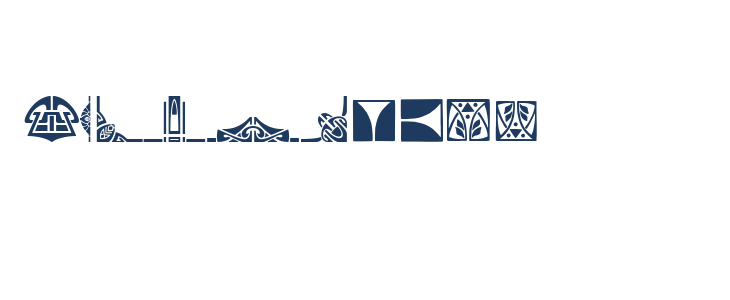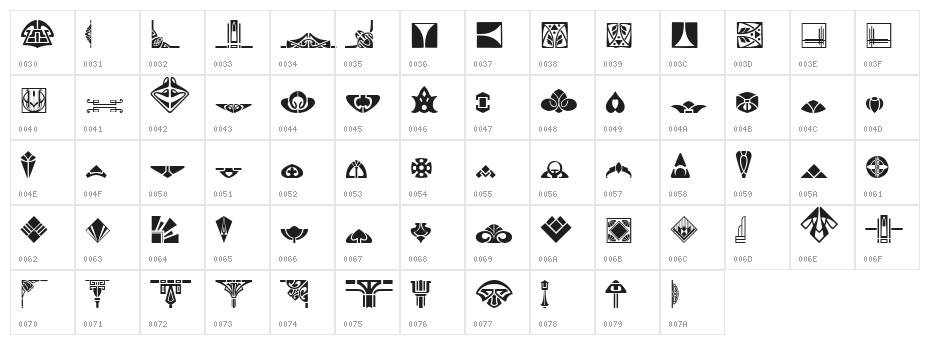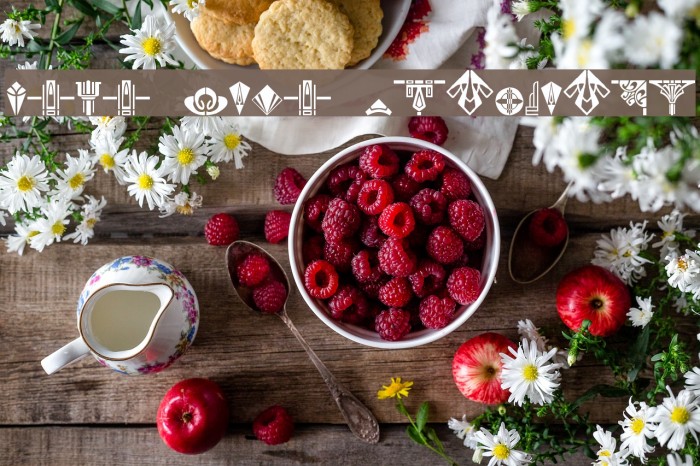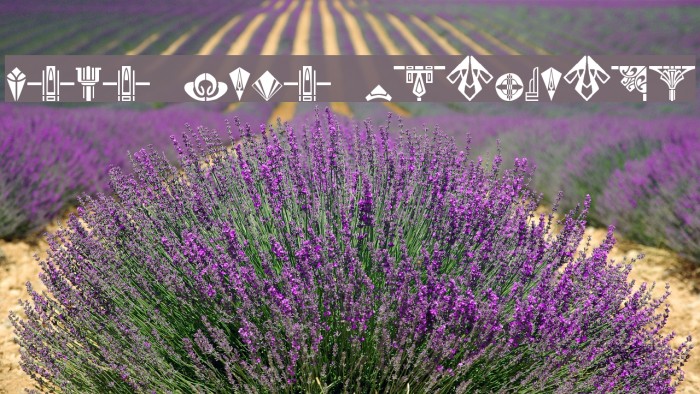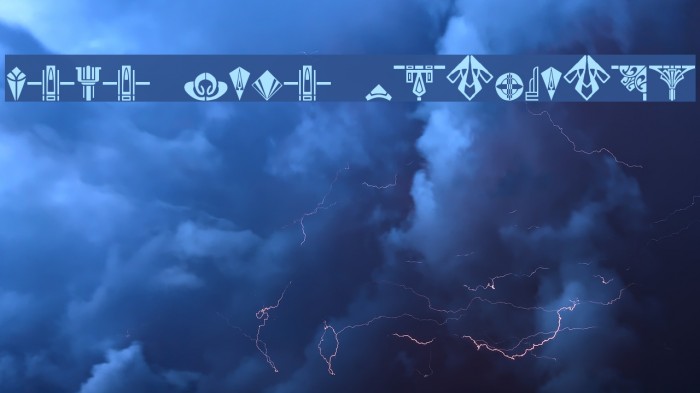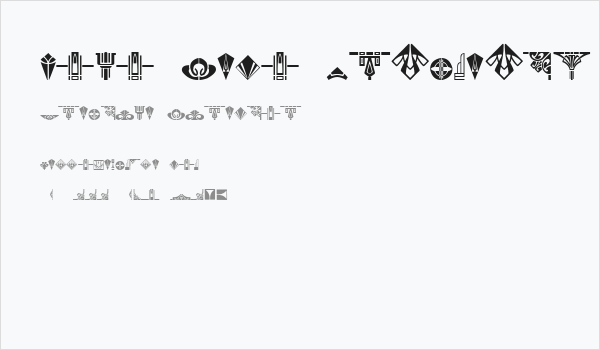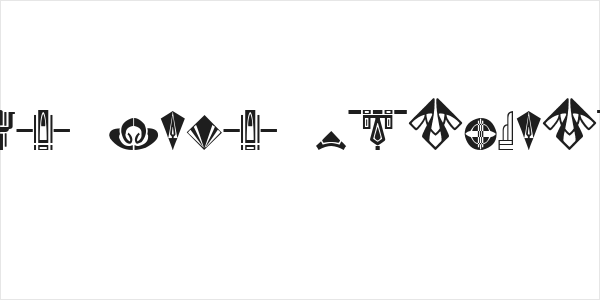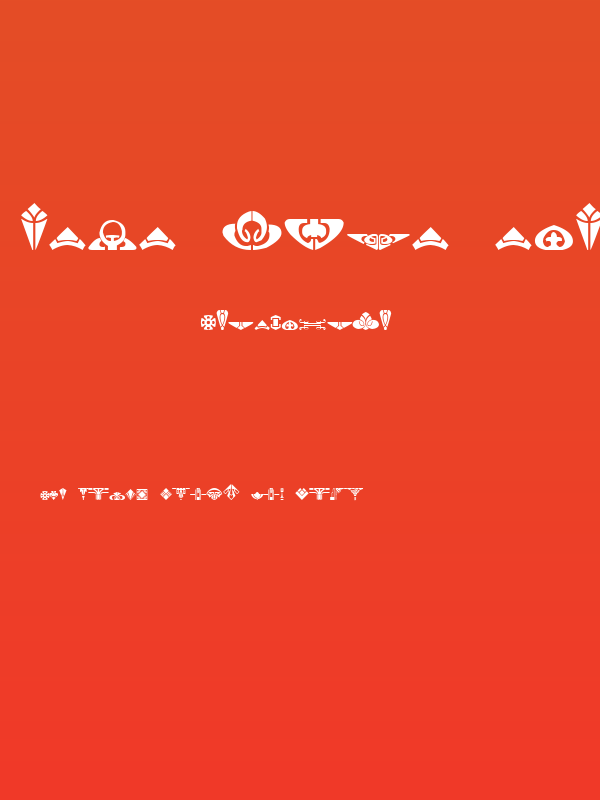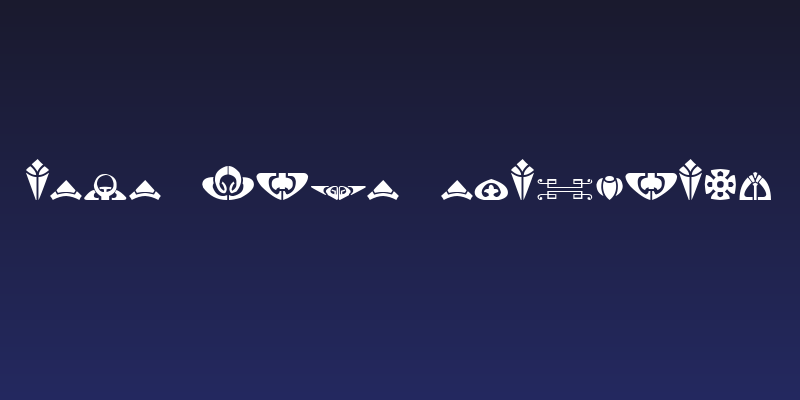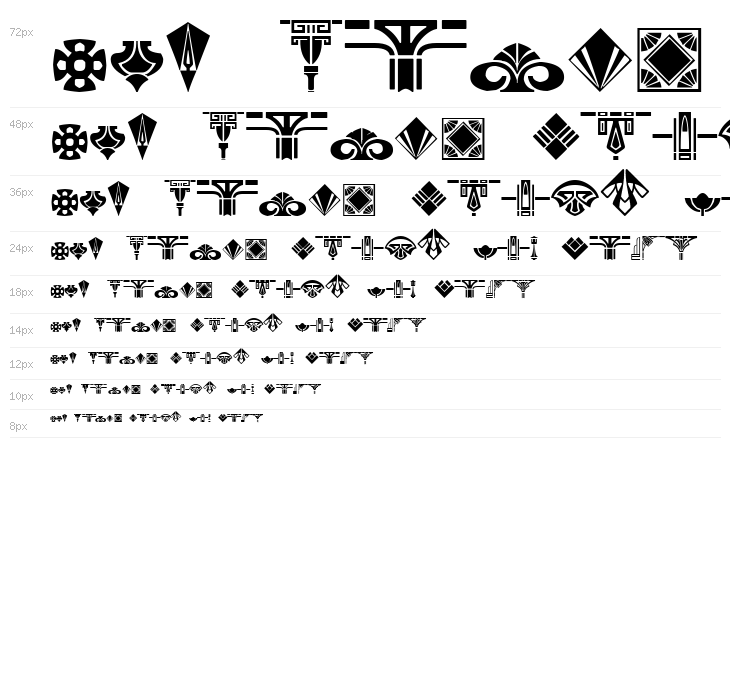
Novo Deco Ornaments Font
Novo Deco Ornaments Description
This collection features a series of intricate, geometric ornaments inspired by the Art Deco movement. Each design showcases bold lines and symmetrical patterns, often incorporating elements such as fans, diamonds, and stylized floral motifs. The designs are characterized by their strong visual impact, making use of both positive and negative space to create a sense of depth and dimension. The ornaments are versatile, suitable for a variety of decorative applications, and can be used to add a touch of elegance and sophistication to any project. The overall aesthetic is both modern and timeless, capturing the essence of the Art Deco style with a contemporary twist.
| Use Case | Logos, Decorative elements, Branding |
| Proposed Projects | Ideal for use in graphic design projects, such as invitations, posters, and branding materials, where a touch of elegance and sophistication is desired. |